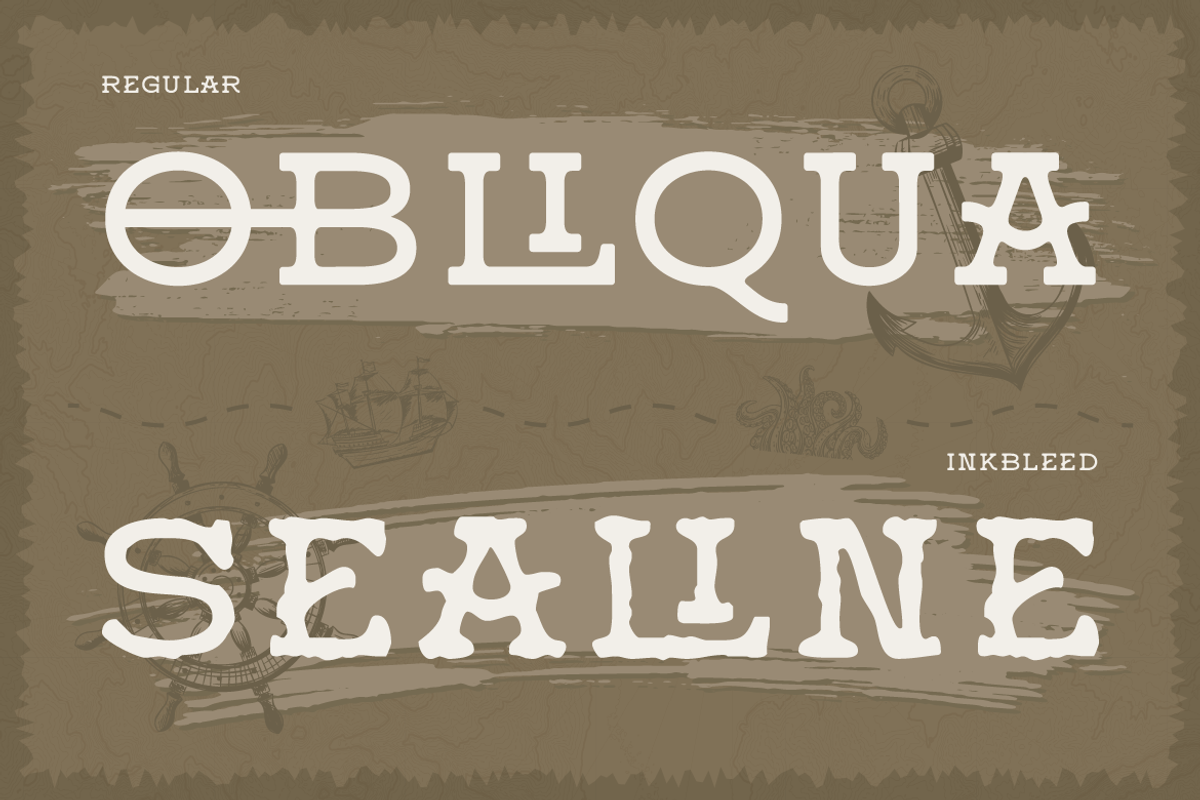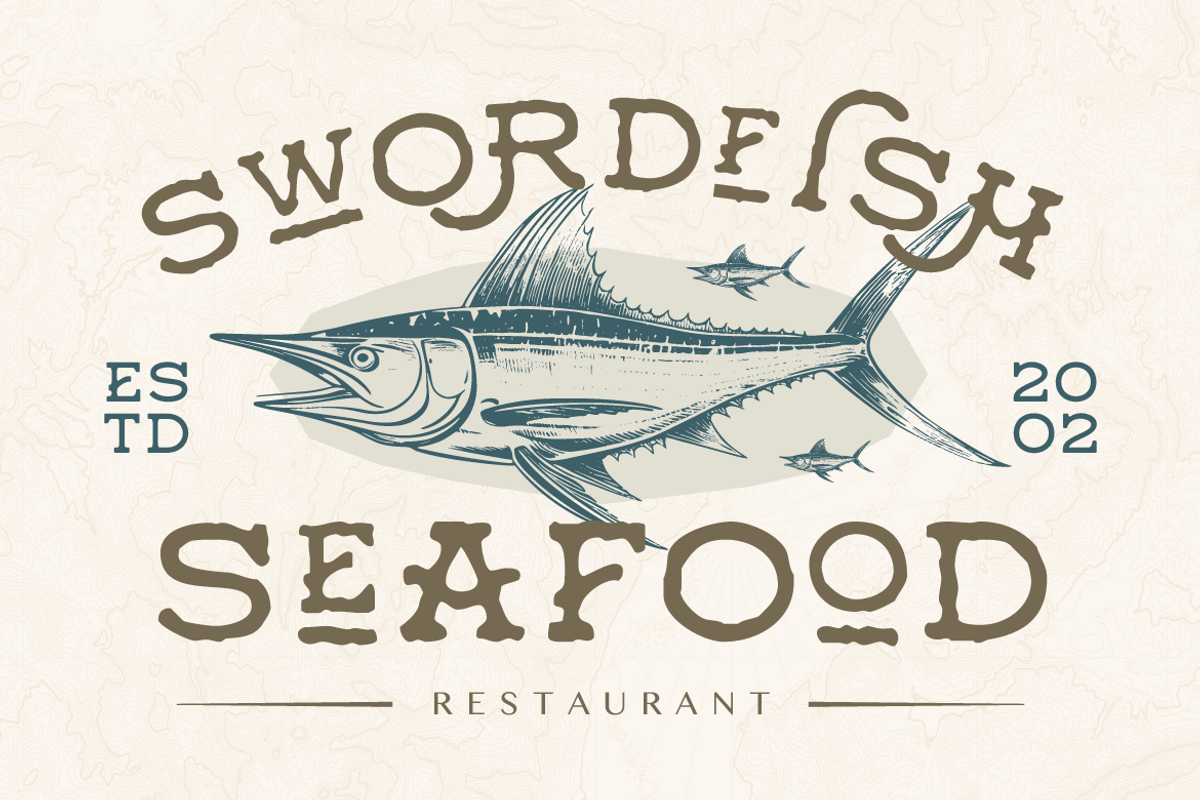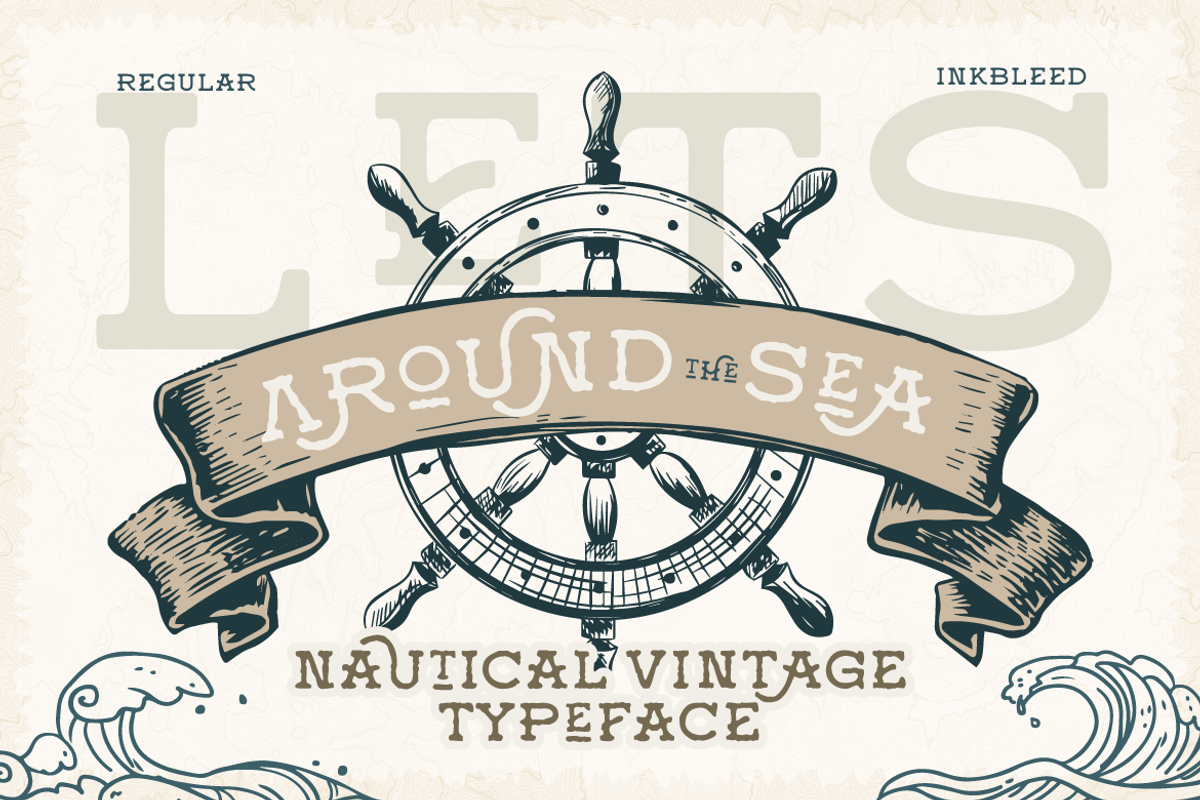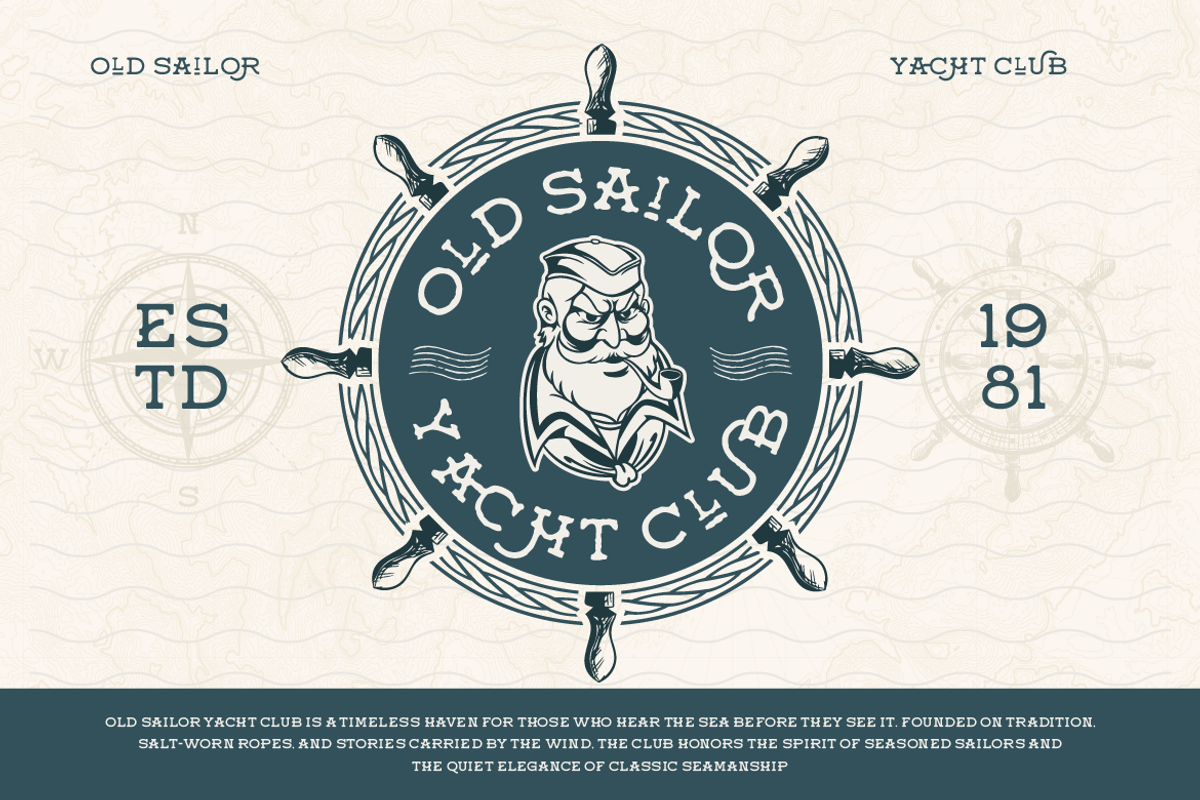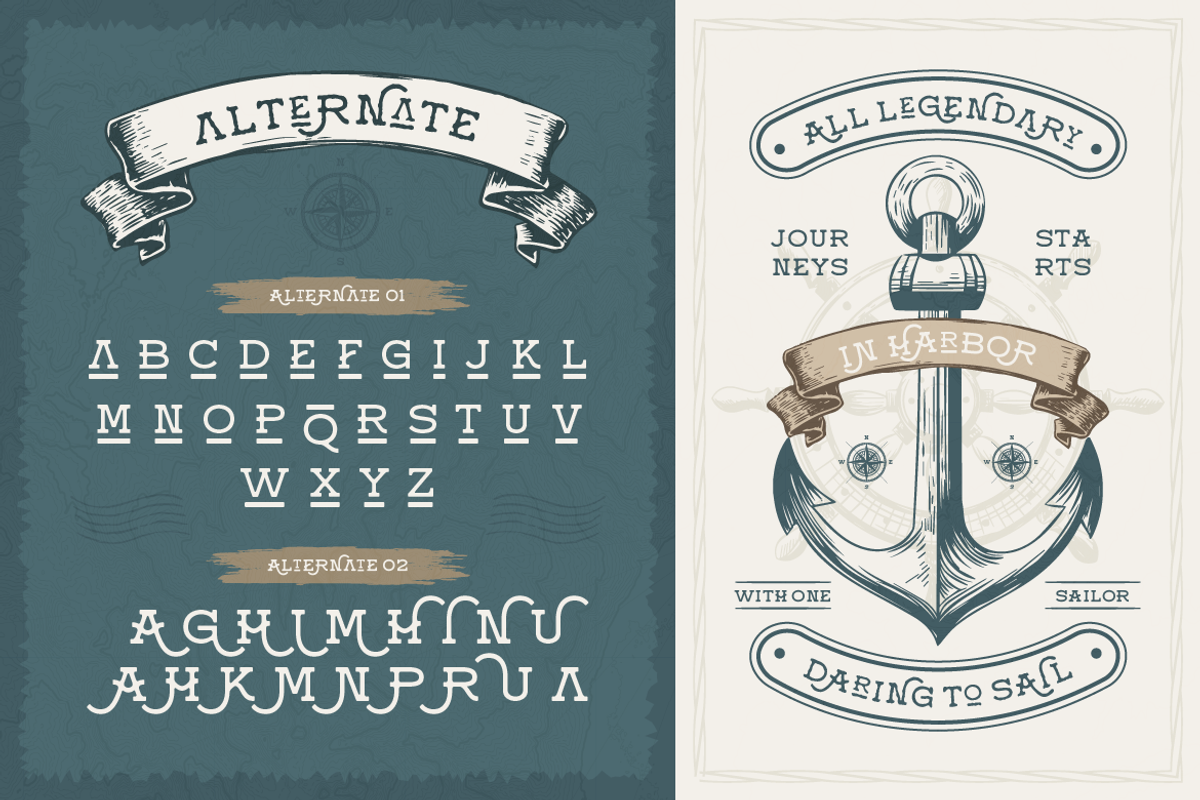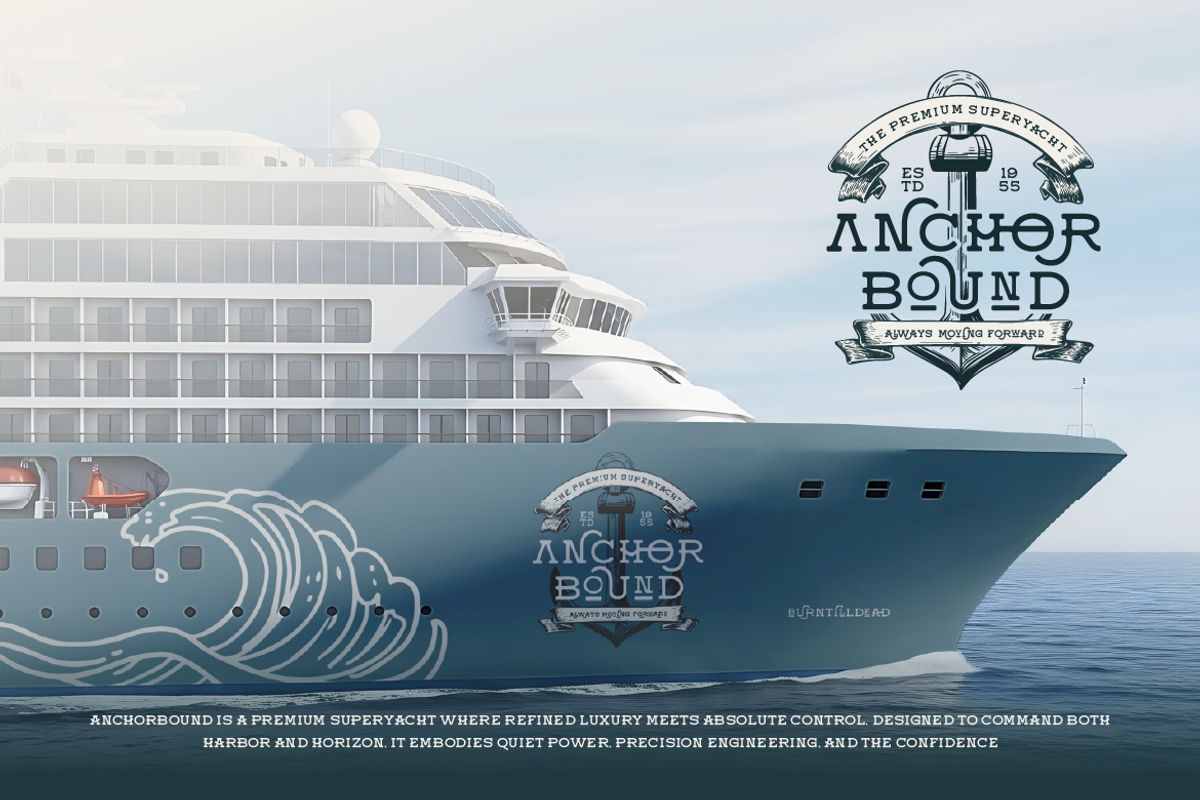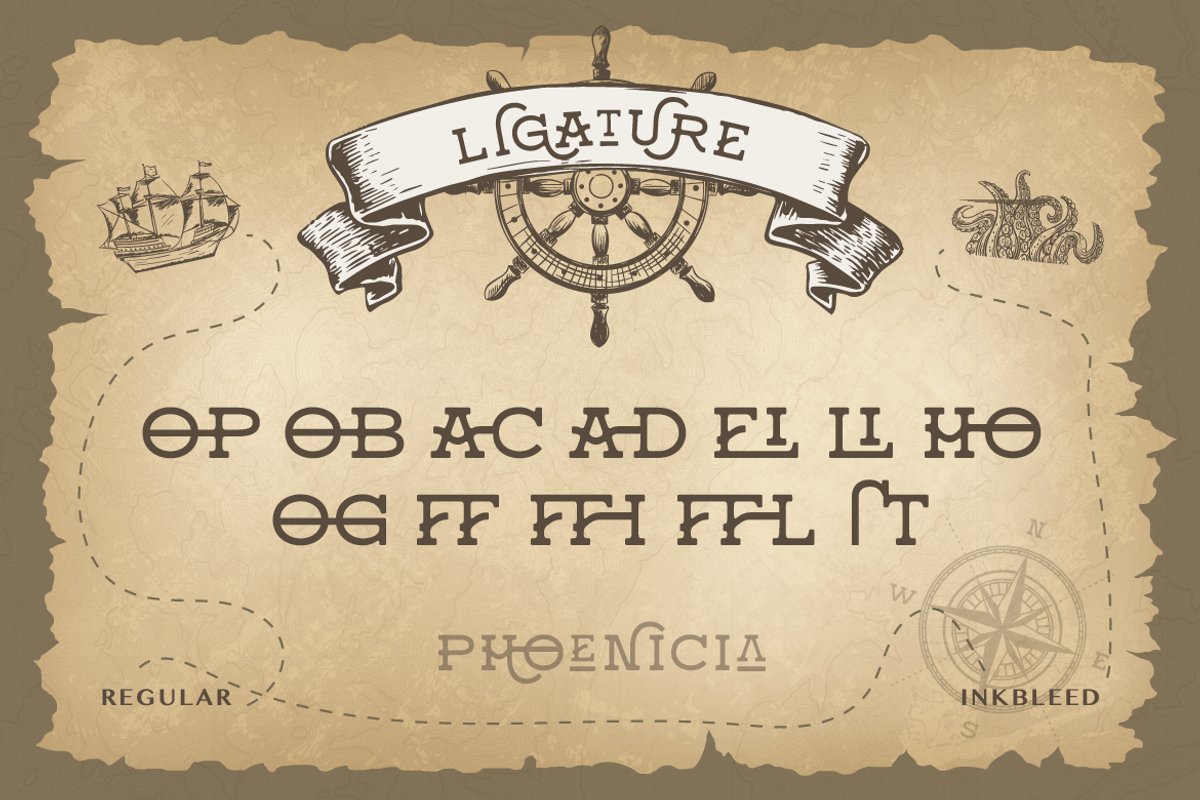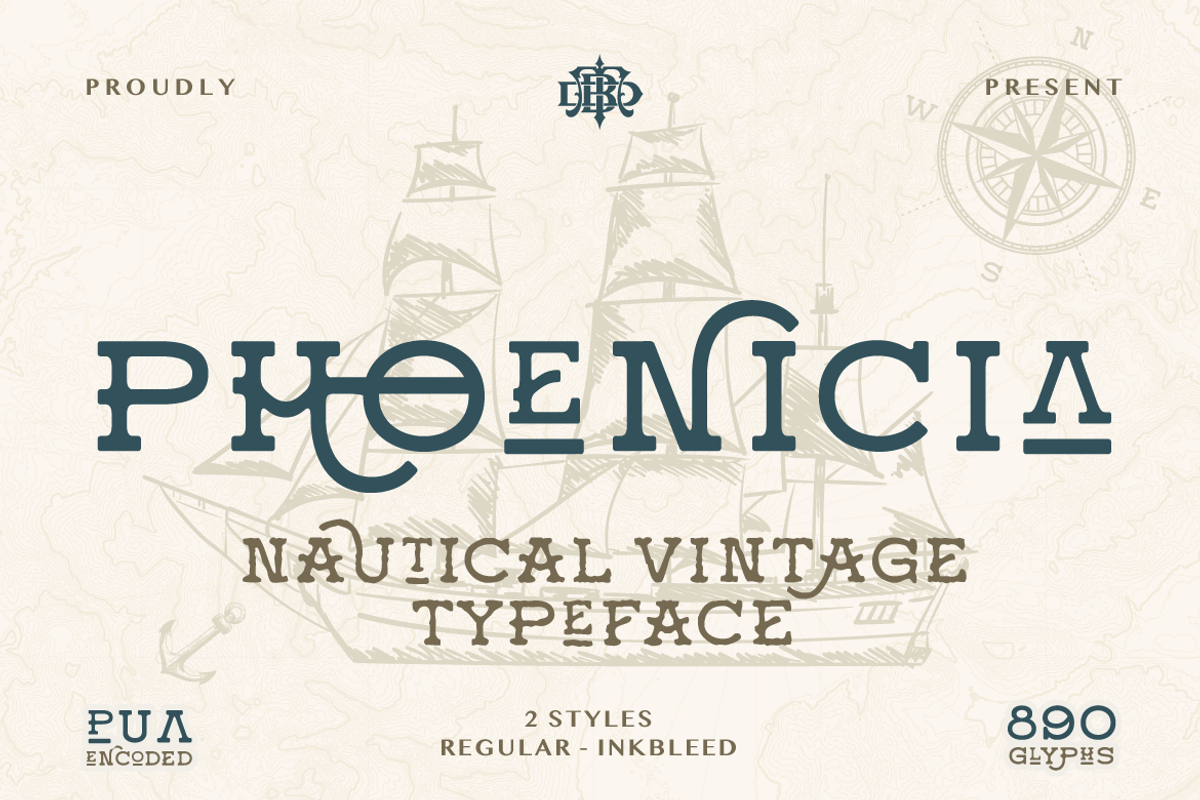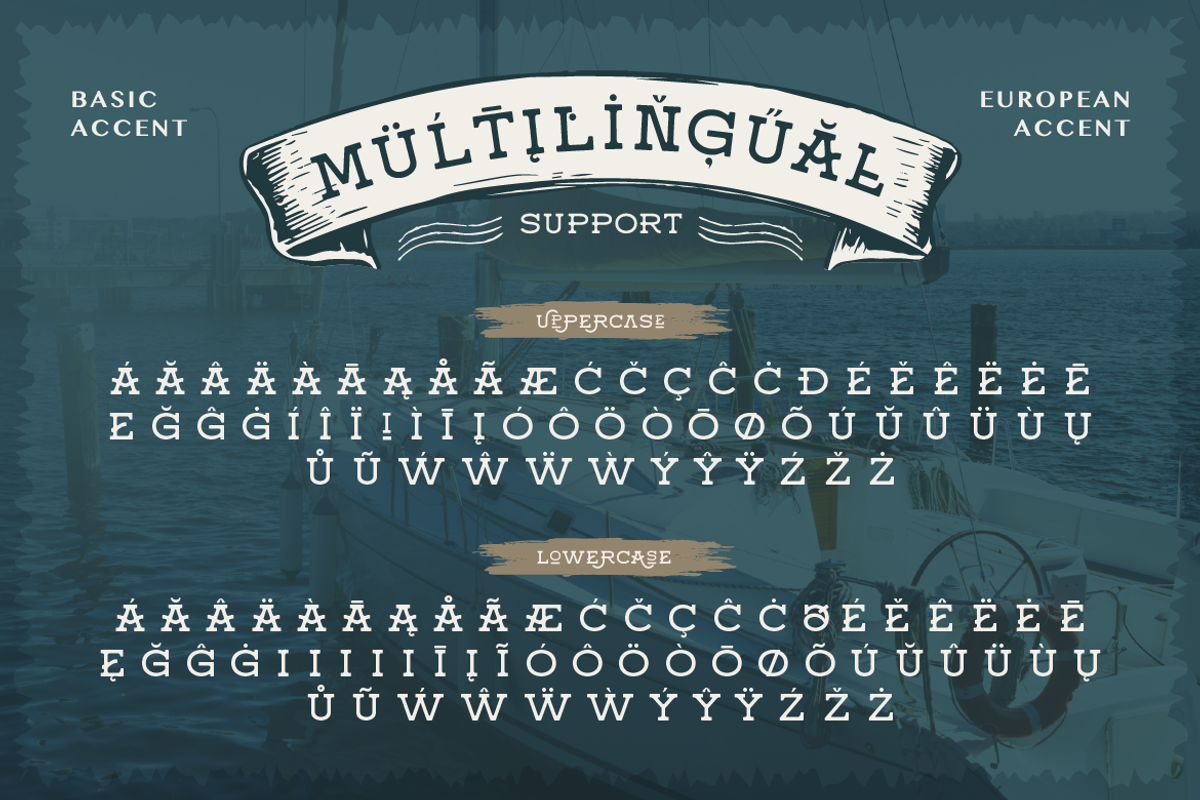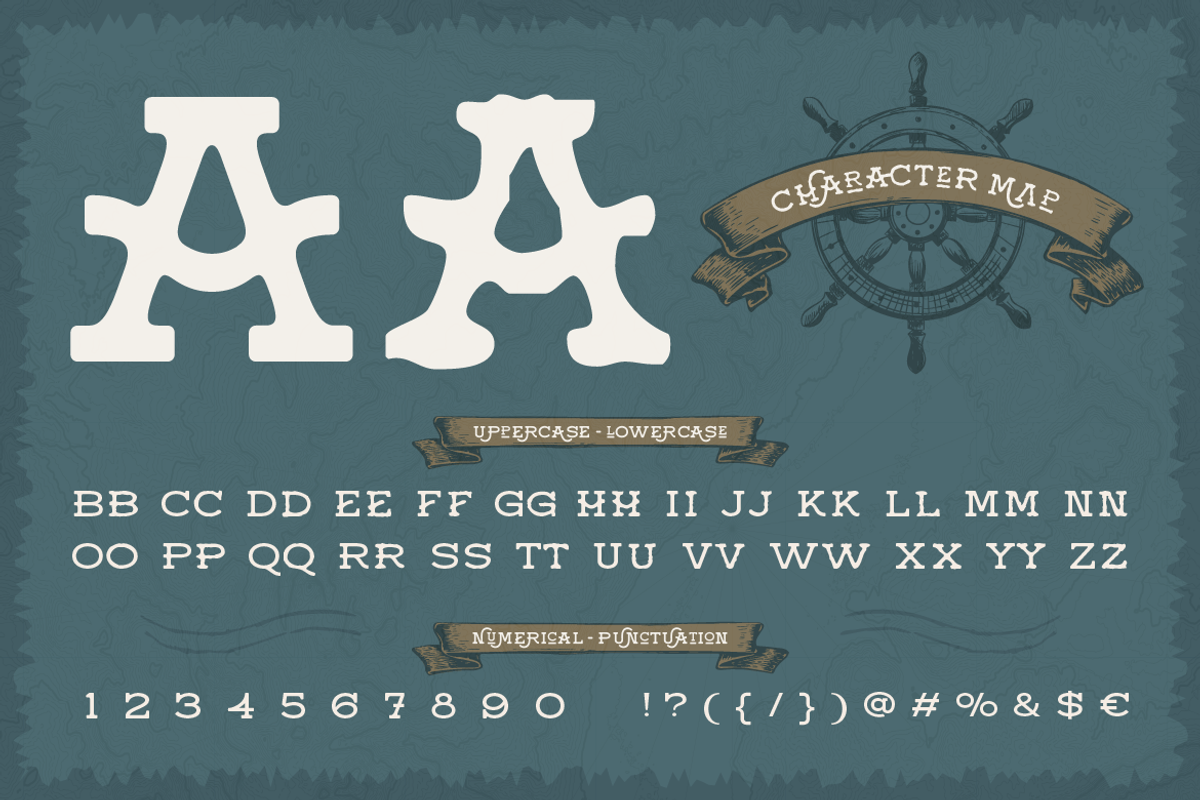
Phoenicia
Phoenicia is a nautical vintage typeface inspired by classic maritime lettering and old sailor typography. It brings a timeless sea-faring feel with bold shapes, strong serifs, and subtle vintage character. This font comes with two styles: Regular and Inkbleed, allowing you to switch between a clean classic look or a more textured, aged print effect. Phoenicia also includes rich alternates, ligatures, and multilingual support, giving you flexibility for expressive and authentic designs. Perfect for designs that need a heritage, nautical, or vintage atmosphere, Phoenicia works great for logos, restaurant branding, packaging, posters, labels, apparel, and editorial titles.
A - Z set (Uppercase & Lowercase)
Number
Phoenicia Characters Map